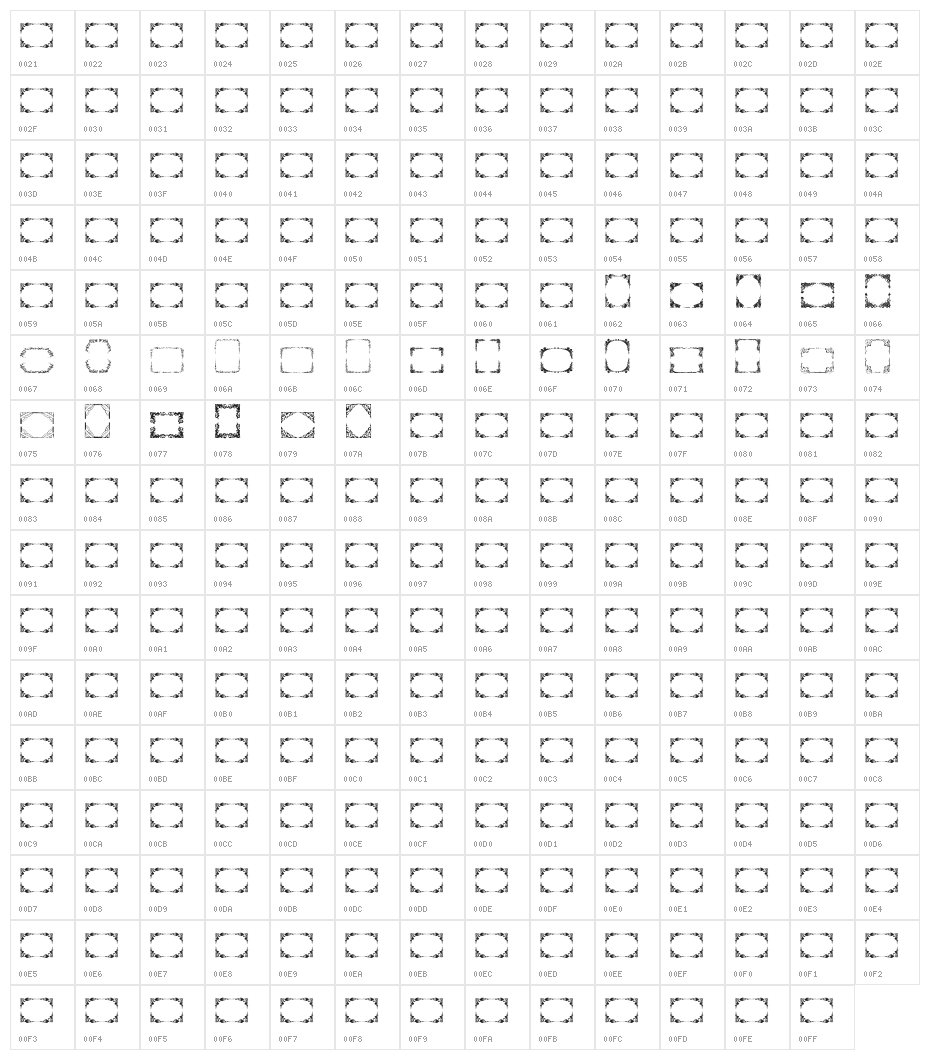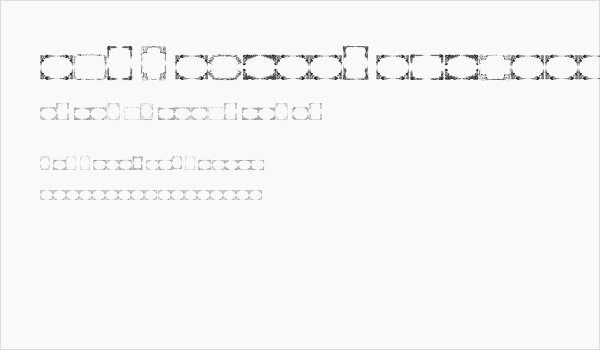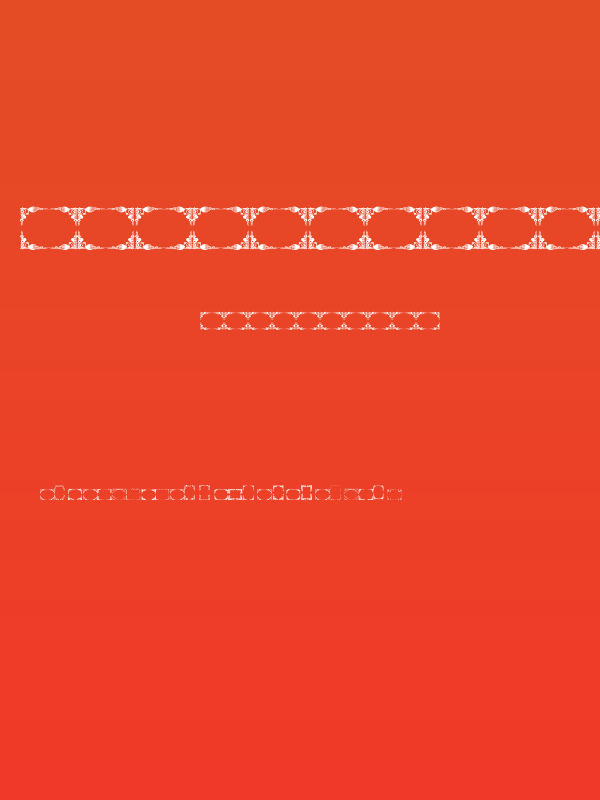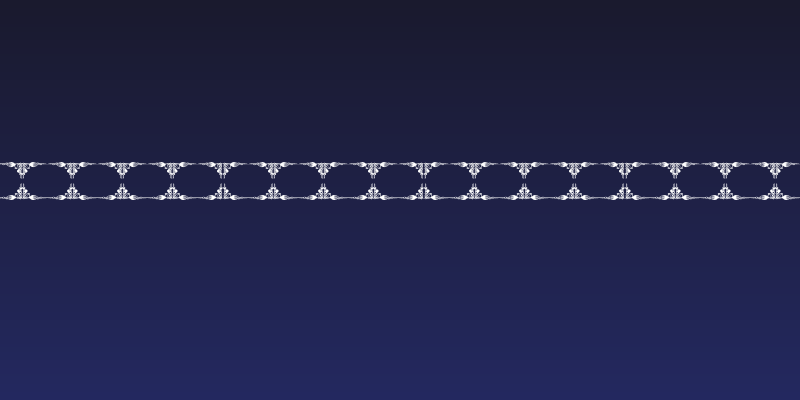
Vintage Frames 15 Font
Vintage Frames 15 Description
Ornamental decorative frames with intricate vintage detailing, forming rectangular and oval shapes with elaborate corner embellishments. Each character is represented as a unique frame or border segment, suitable for creating borders or dividers.
| Overall Style | Vintage, Ornamental, Decorative |
| Use Case | Borders, Frames, Decorative accents |
| Proposed Projects | Invitations, certificates, greeting cards, scrapbooking, decorative borders for print or digital projects. |